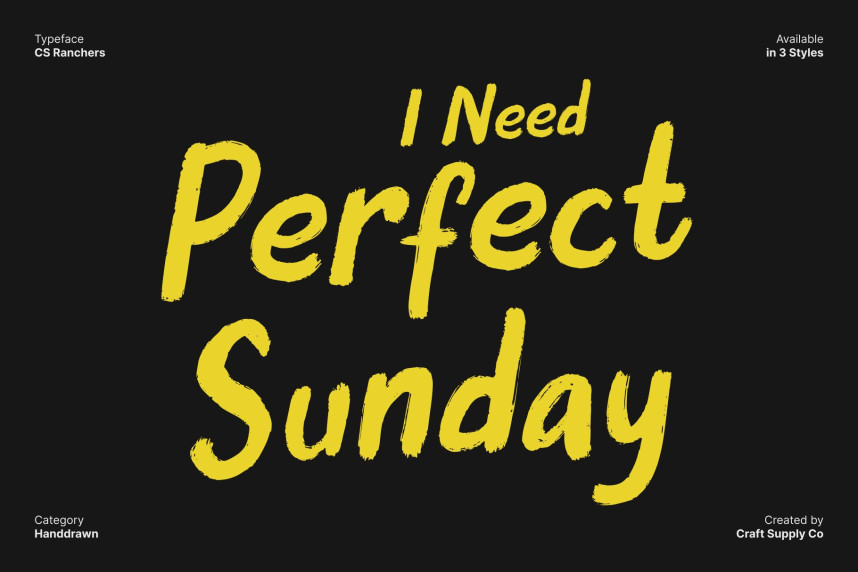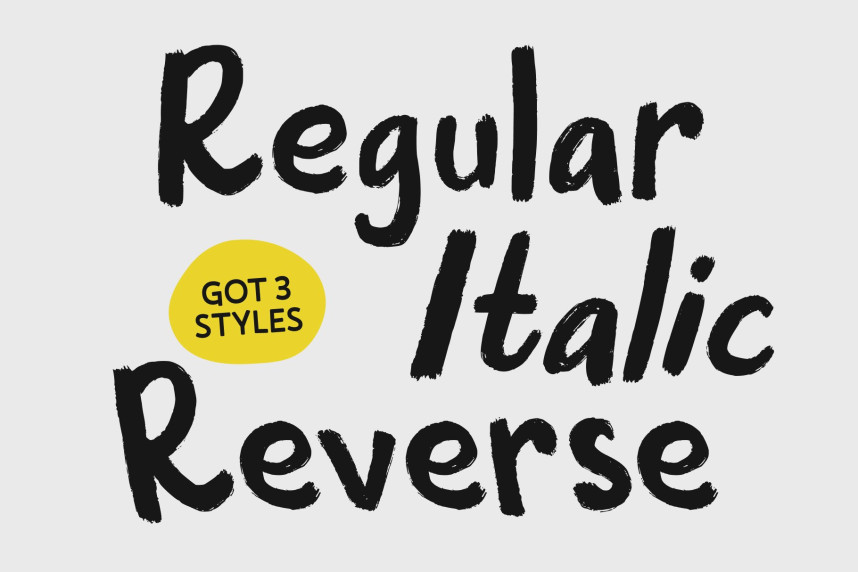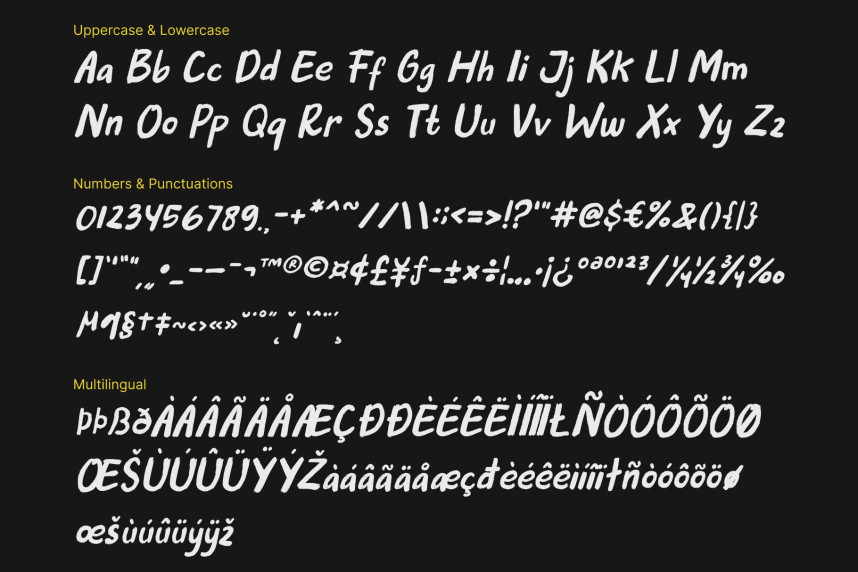
CS Ranchers Font
CS Ranchers Font – Expressive Brush Display with Natural Hand-Brushed Texture Artistic Brush Strokes with Modern Expression. This is a Brush display font designed to capture the dynamic beauty of natural hand-brushed lettering. Its expressive strokes and textured edges convey artistic energy, giving every design a handcrafted and modern feel. This font brings a bold yet approachable personality, perfect for projects that demand creativity, movement, and visual impact.